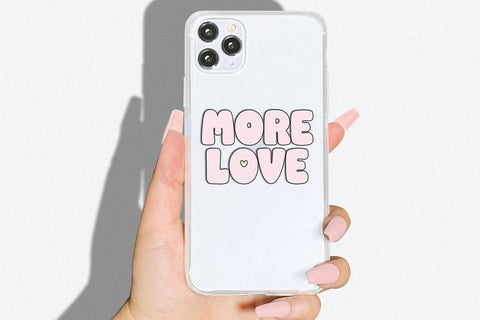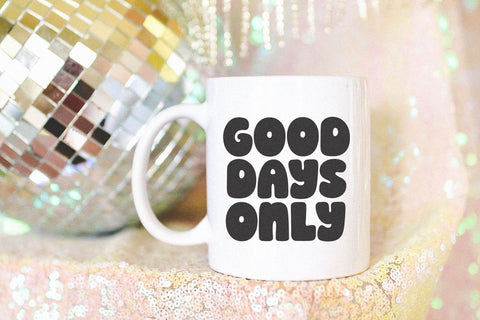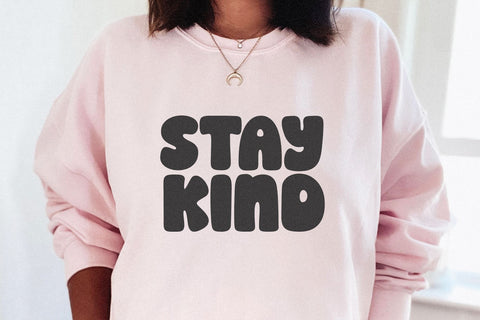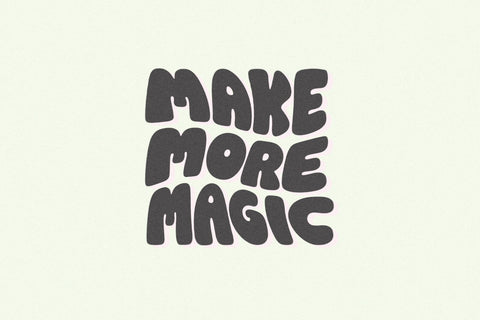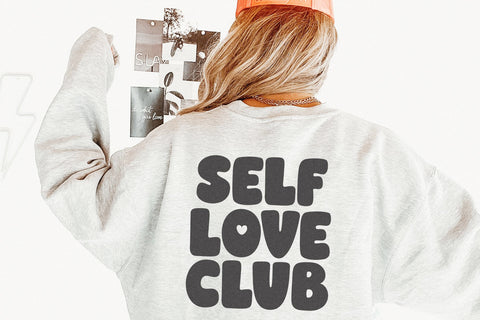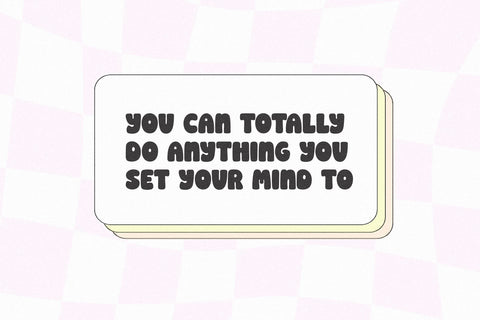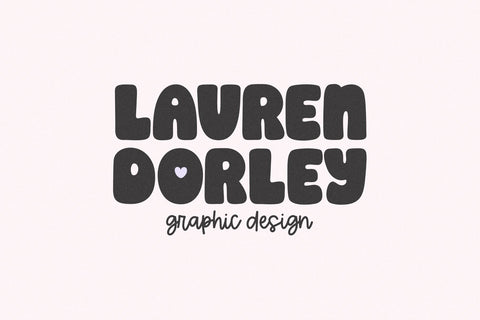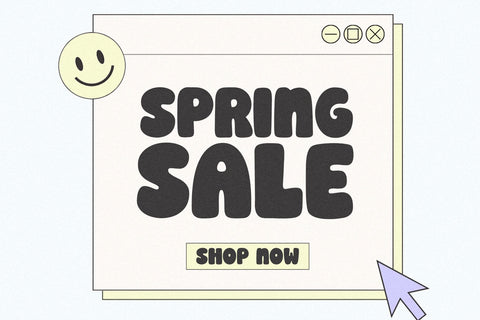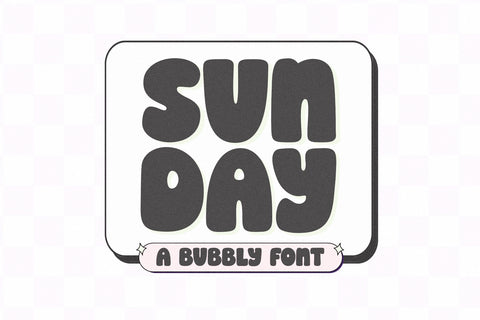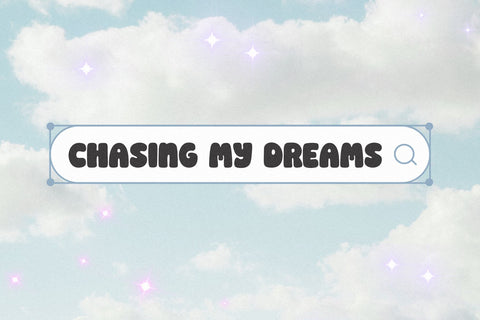
Sunday - A Bubbly Font
Sunday is a cute bubbly font.
This is an all caps font.
Use lowercase letters to access the O with a heart center.
This font is perfect for cricut designs, shirts, logos, retro designs, svg files, names, teachers, goodnotes, posters and more!